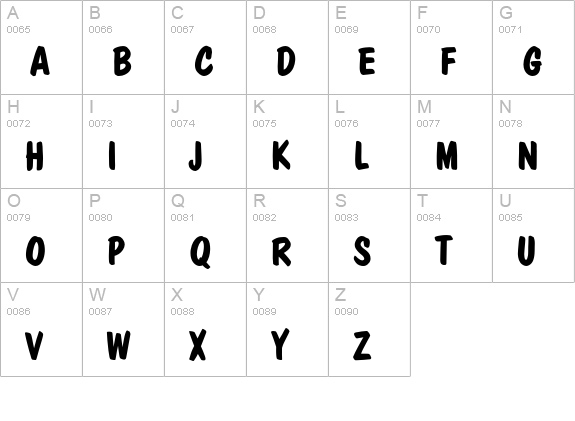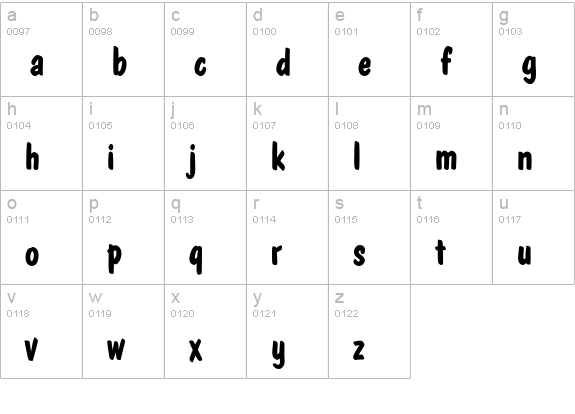
Polka Bold Font Details
Polka Bold is a strong, high-contrast variant in the Polka typeface family \xE2\x80\x94 well suited to headlines, attention-grabbing titles, and strong calls-to-action.
Polka Bold font is a charming and whimsical typeface that exudes a playful and lively vibe. With its rounded edges and bold strokes, this font is perfect for adding a touch of fun and personality to any design project. Whether you are creating invitations, posters, or branding materials, Polka Bold will make your text stand out with its unique and eye-catching appearance. The best part? Polka Bold is available for free download at FontsMarket.com. You can easily access this delightful font and incorporate it into your creative endeavors without any cost. Embrace the cheerful spirit of Polka Bold and let your designs shine with its bold and distinctive style. Download Polka Bold today and bring a touch of whimsy to your projects!